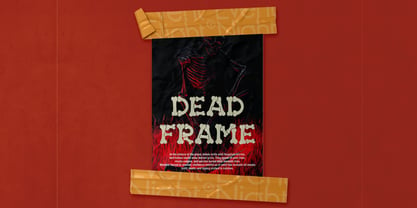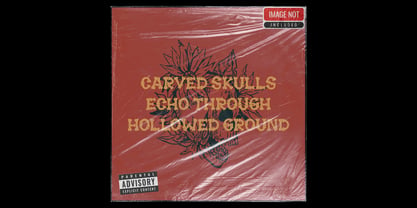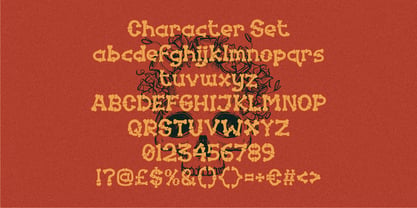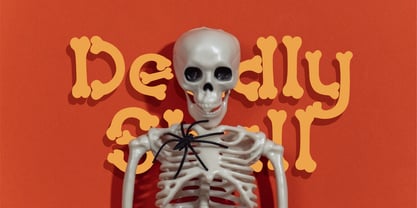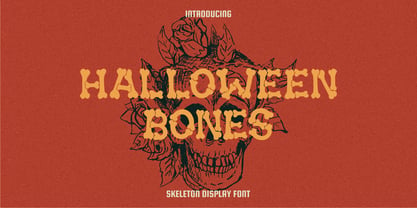
Halloween Bones
by Shanaf
The Halloween Bones Font Family was designed by Yesie Erma Yunita and published by Shanaf. Halloween Bones contains 1 styles. More about this family
Halloween Bones is a bold skeleton display font that captures the eerie essence of Halloween with playful yet spooky letterforms crafted from stylized bone shapes. Each character is constructed to resemble connected skeletal pieces—featuring rounded bone ends, playful curves, and intentional imperfections that reflect a raw, organic horror aesthetic. With a chunky and legible display structure, this font excels in grabbing attention and evoking bone-chilling vibes. The visuals are enhanced with cartoonish details that strike a perfect balance between creepy and charming, making it ideal for Halloween-themed projects and spine-tingling designs.
Perfect for logos, event posters, party invitations, haunted house signage, and horror merchandise packaging, Halloween Bones delivers a terrifyingly fun impact. It also fits seamlessly into crafting projects, stickers, and kids’ spooky activity books thanks to its playful design. This font includes uppercase, lowercase, numbers, and symbols—offering full flexibility for professional and DIY creatives. Use Halloween Bones to breathe skeletal life into your next creepy creation.
Designers: Yesie Erma Yunita
Foundry: Shanaf